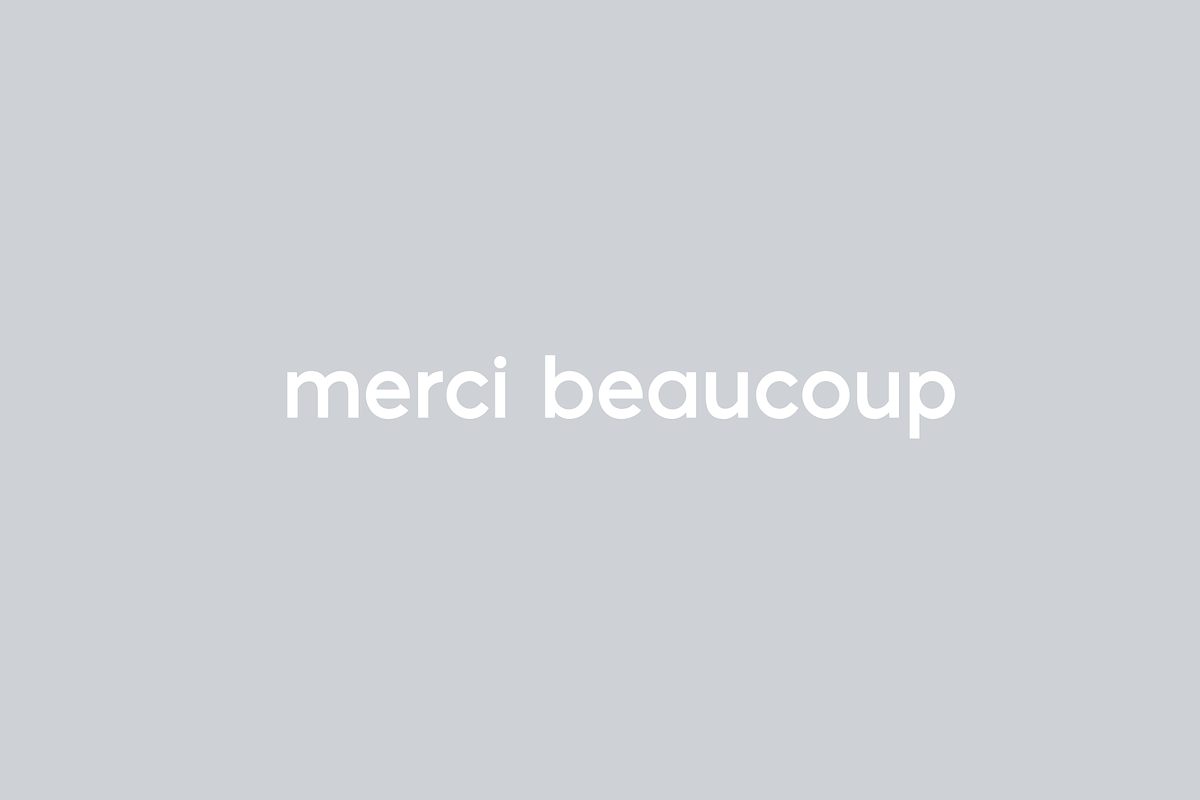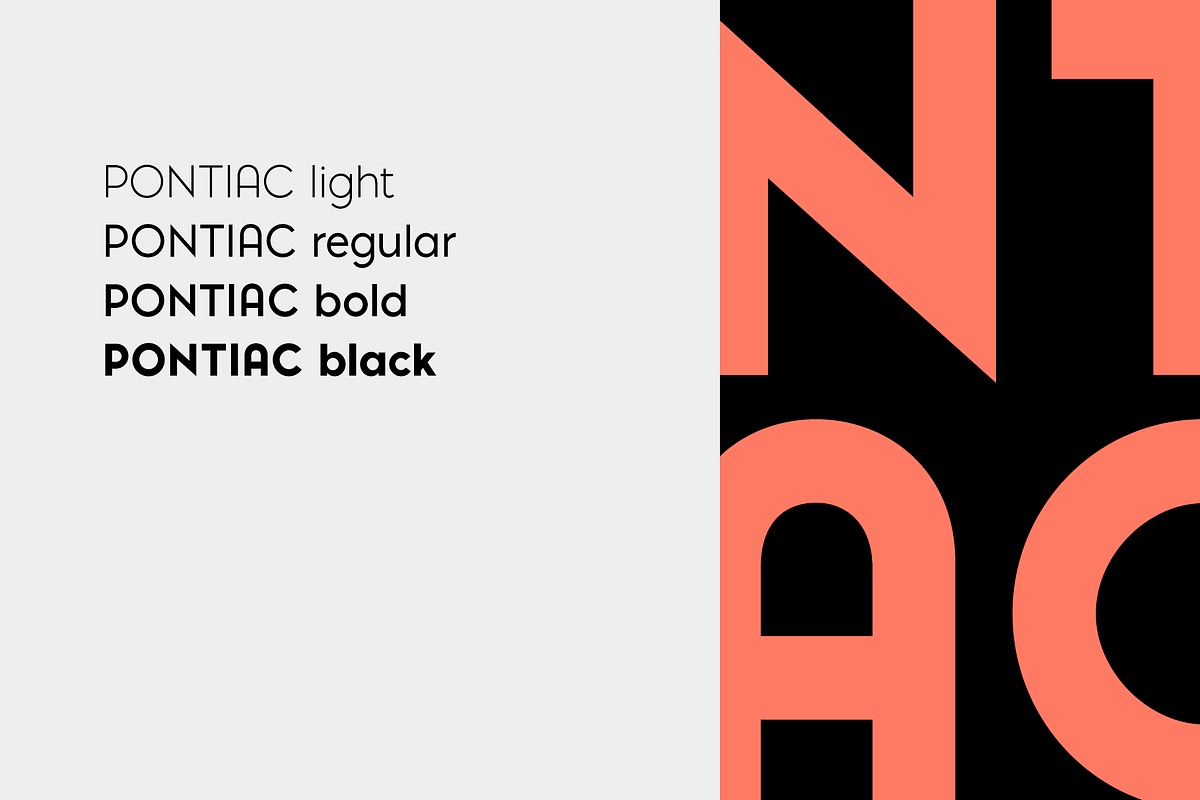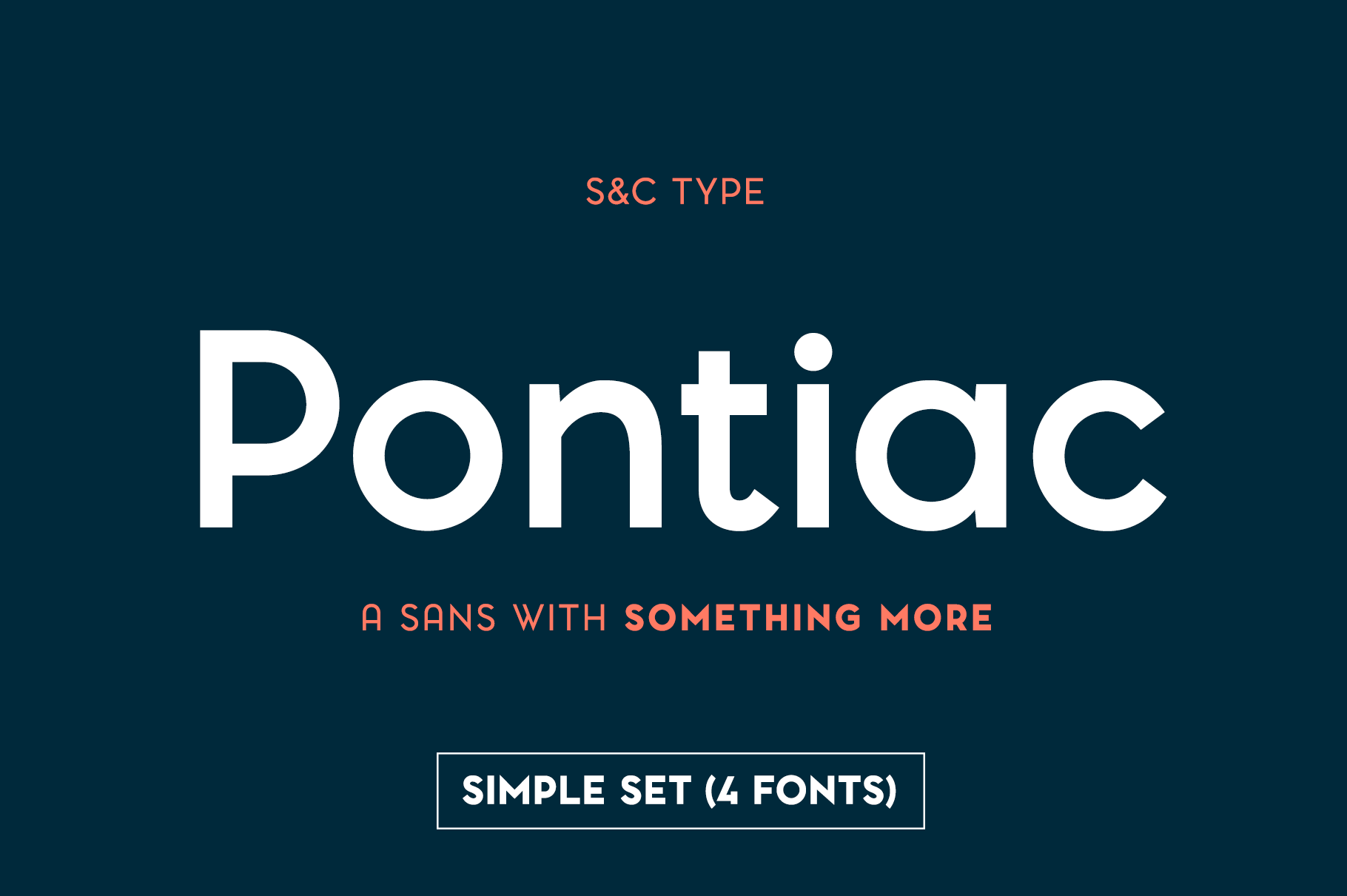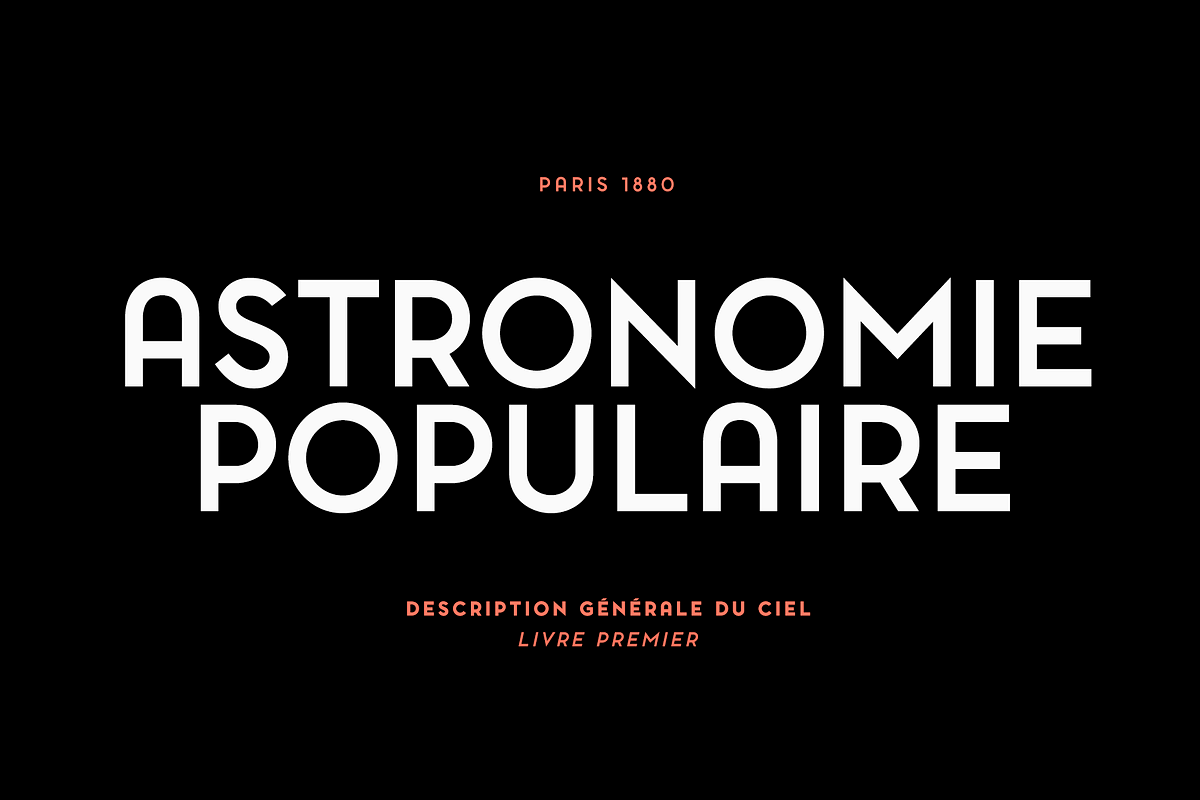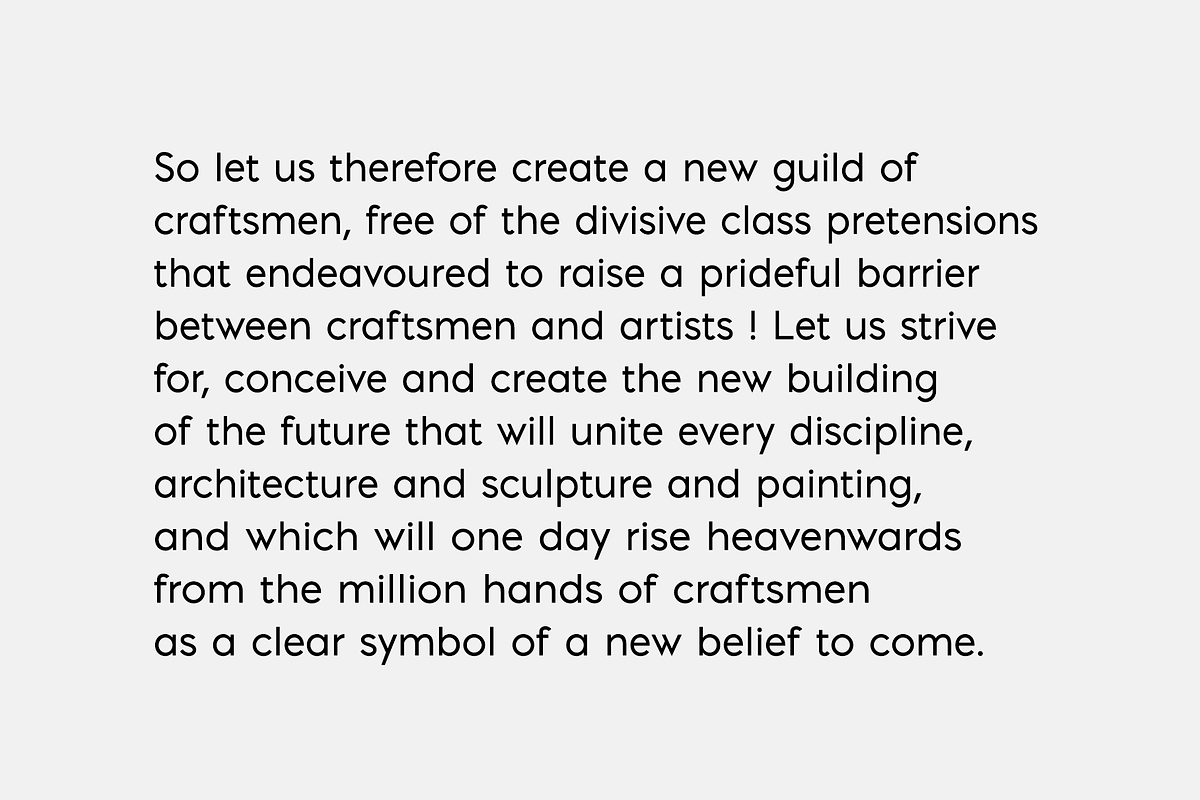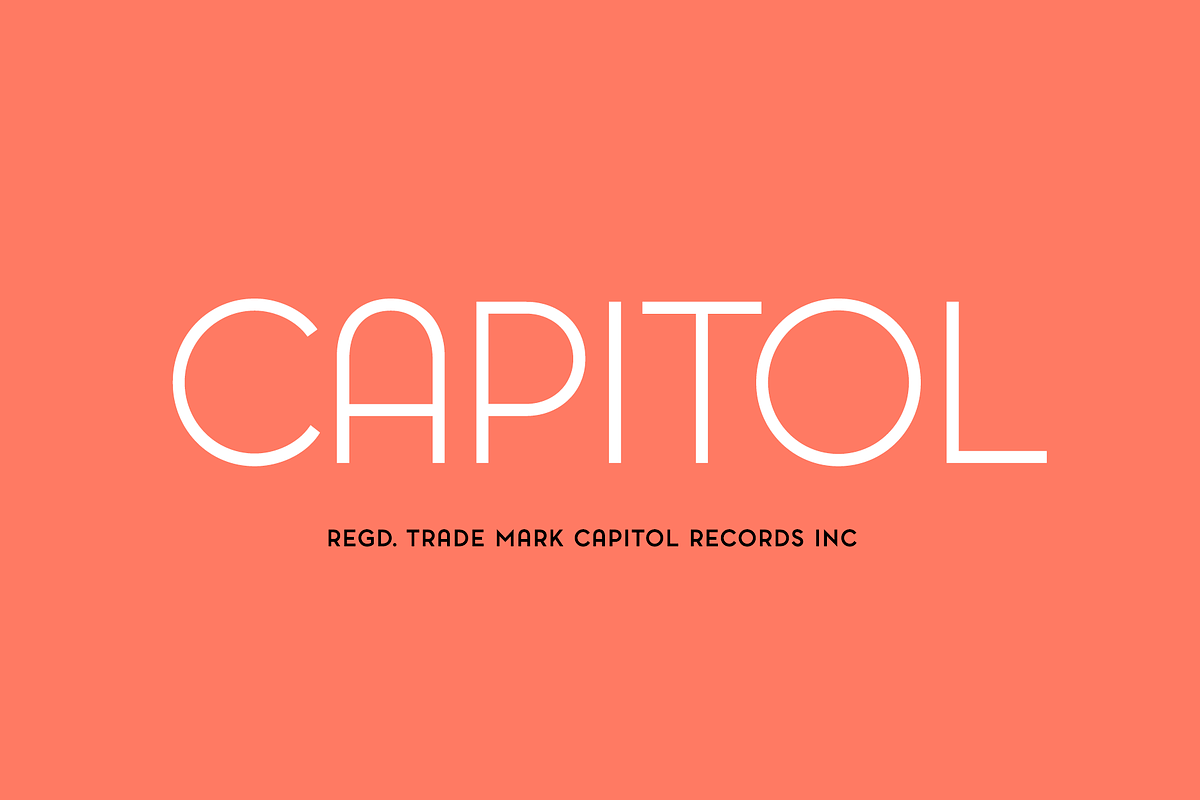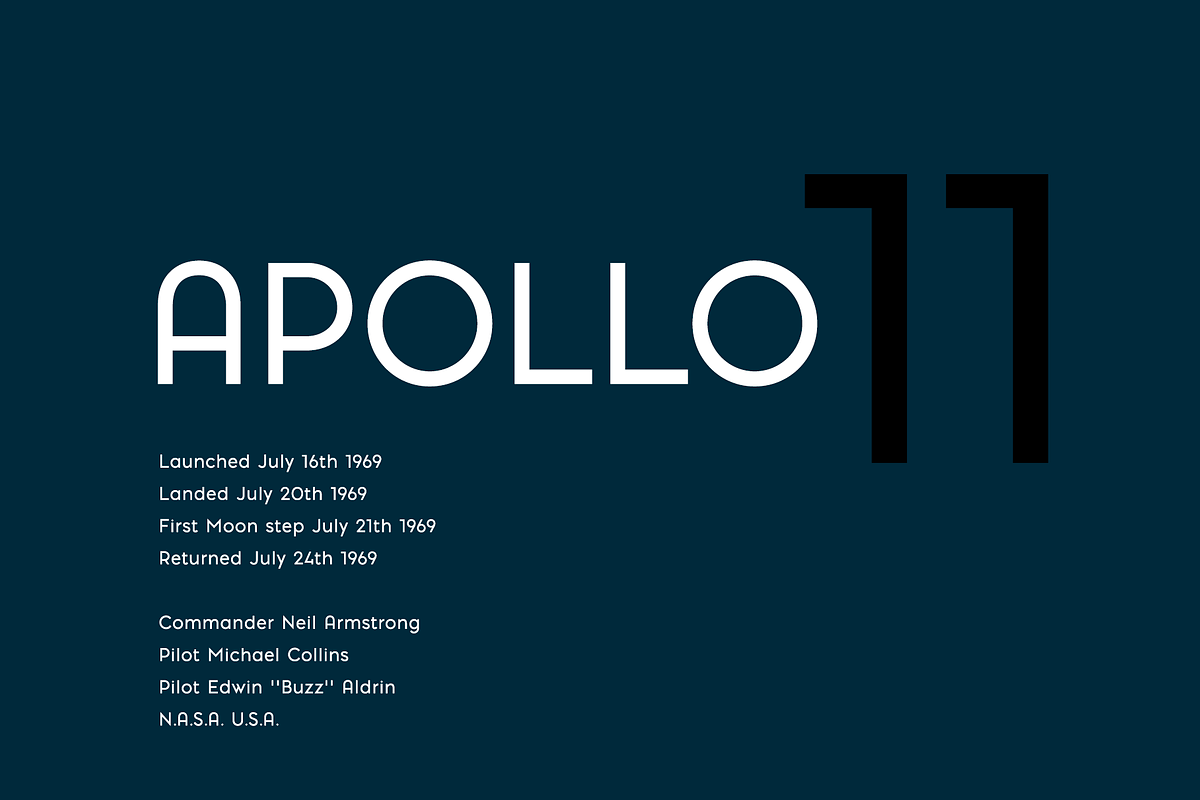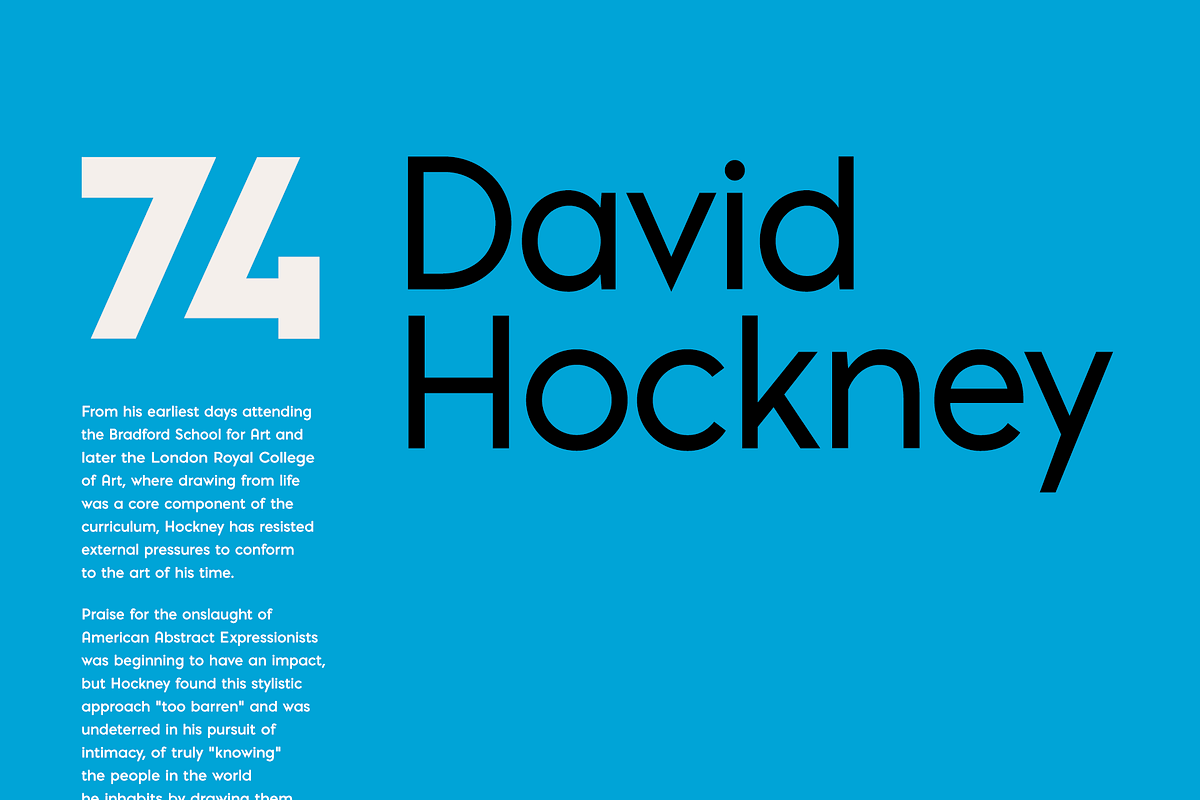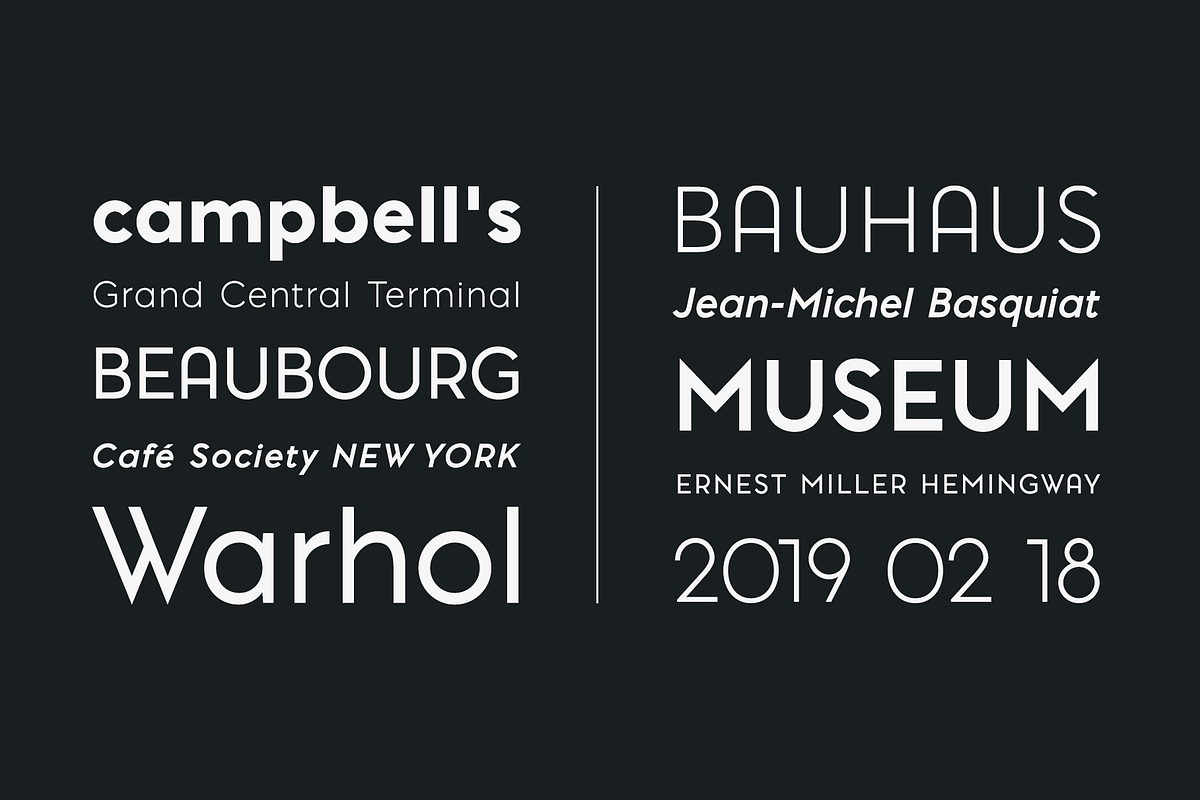
Pontiac Font Collection (Simple set)
Pontiac is a sans serif OpenType font designed by Fanny Coulez and Julien Saurin in Paris. Somewhere between Akzidenz Grotesk and Neutra, Pontiac is a functional font with something more, something warm, geometric but human, something distinctive, something French finally.
This pack is the standard set of Pontiac, with a total of 4 fonts:
- Pontiac Light
- Pontiac Regular
- Pontiac Bold
- Pontiac Black